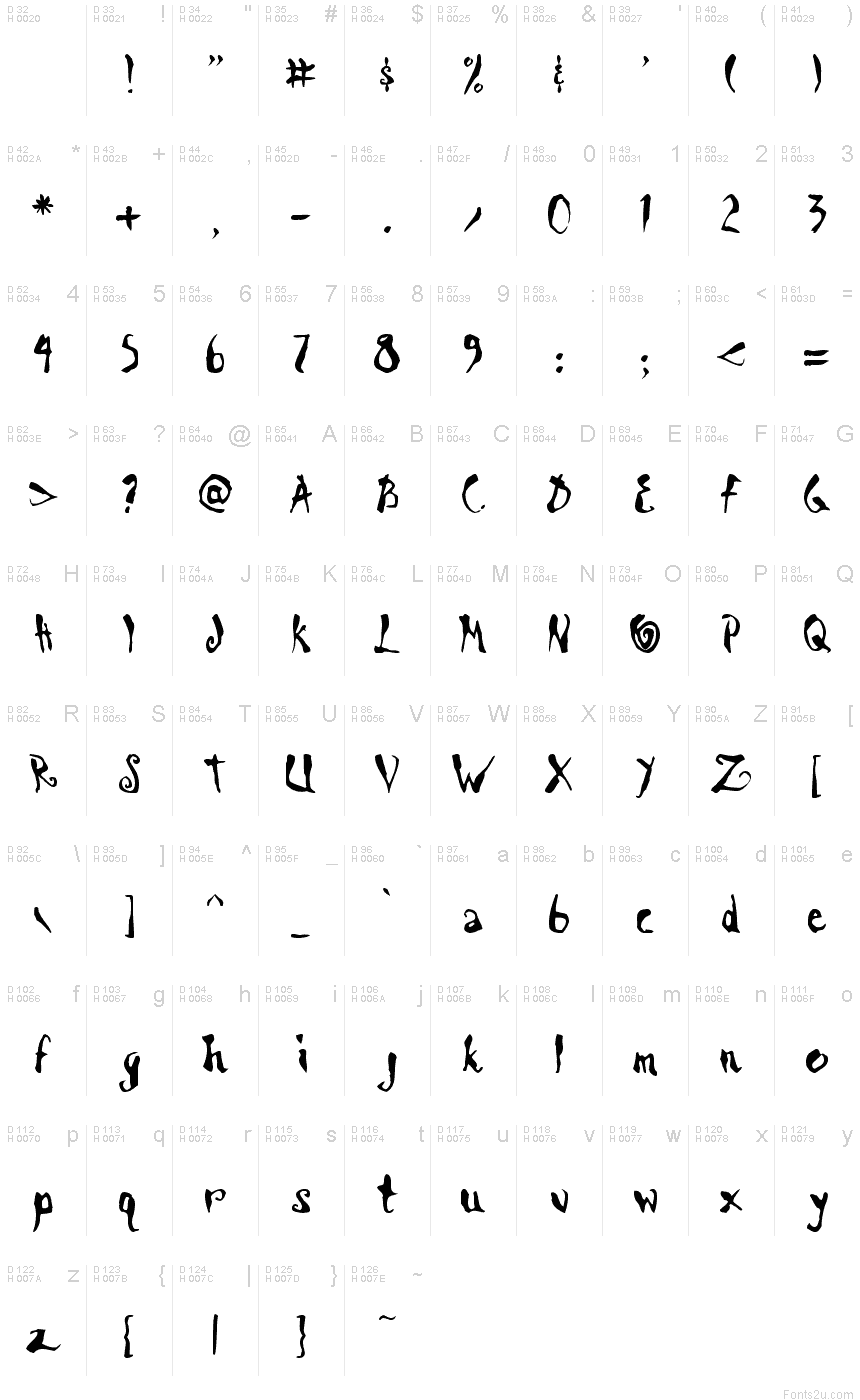
Scrawn KOI8 AOE
Scrawn KOI8 AOE by Astigmatic One Eye is a free hand-drawn display font with tangled, uneven letterforms. Its strokes swing from broad black shapes to wiry hooks, giving the lettering a restless silhouette. The curves look deliberately unruly.
It can turn a title into part of an illustrated creature or crooked sign. That theatrical quality suits horror-comedy posters, underground music artwork, and offbeat game graphics. The curling strokes can echo tentacles or vines, turning words into surrounding artwork.